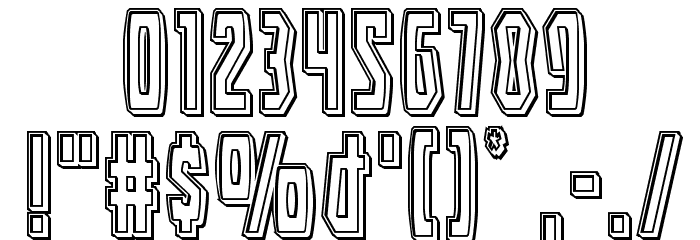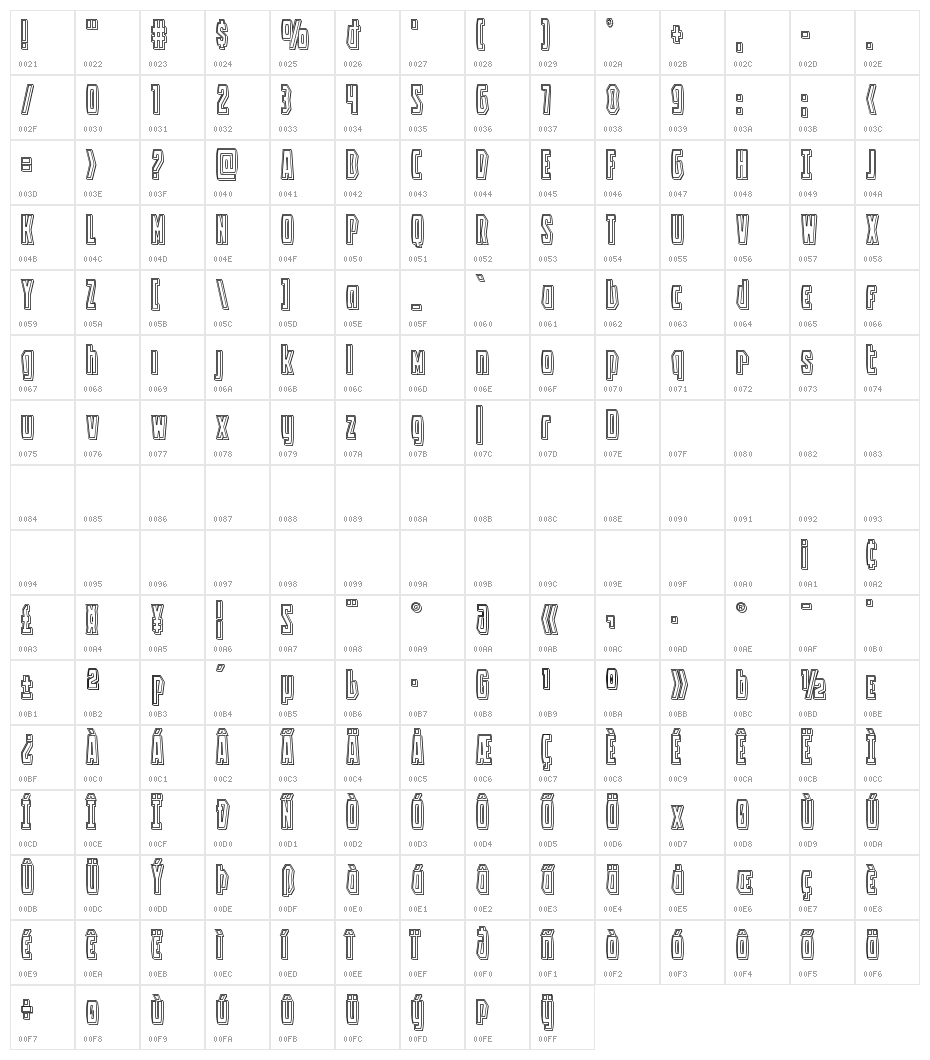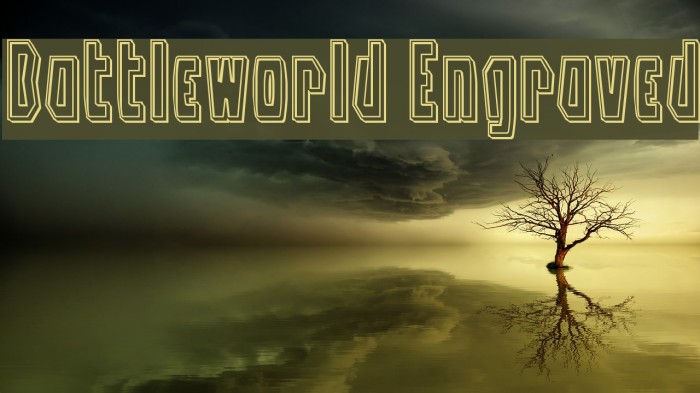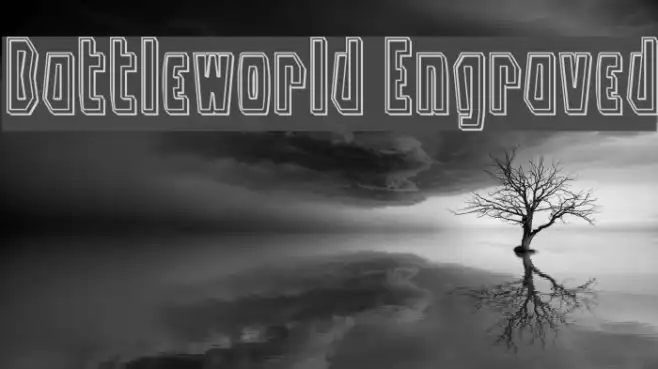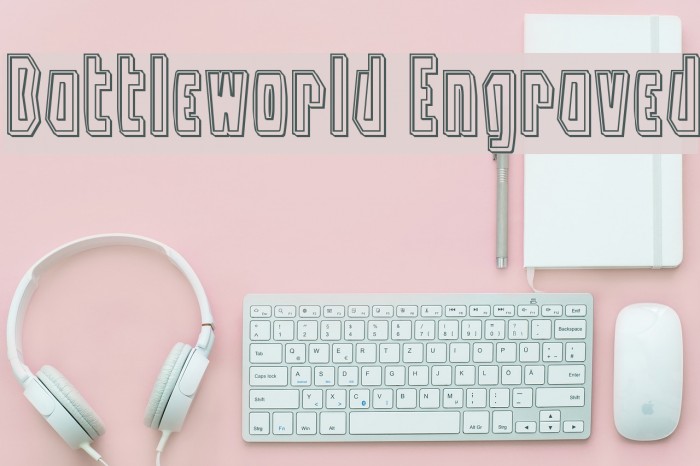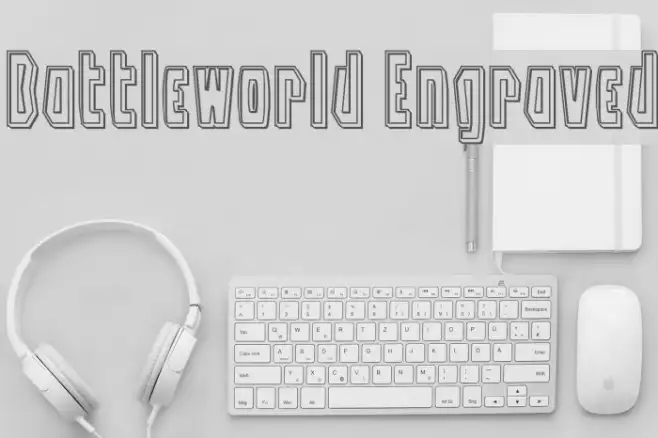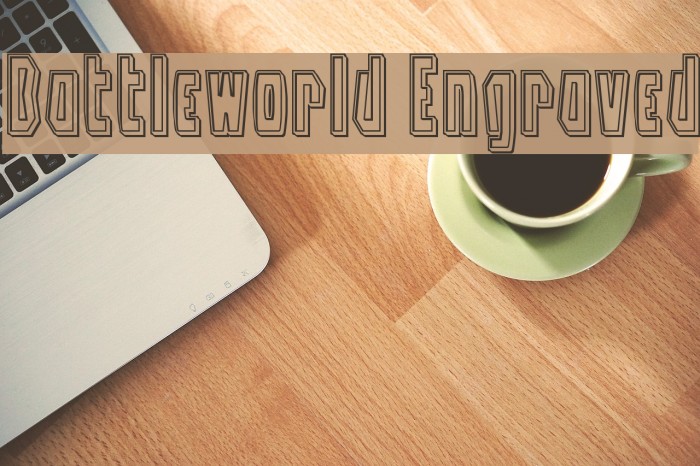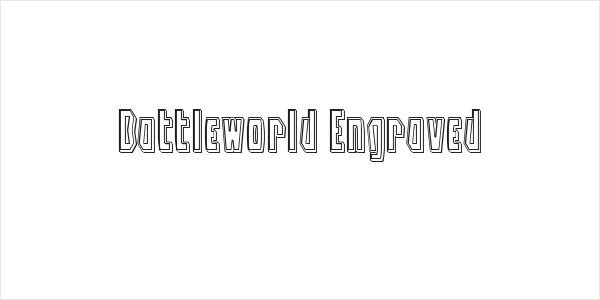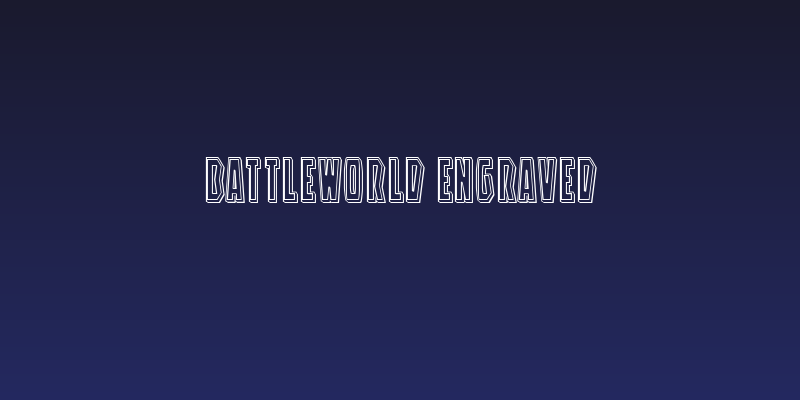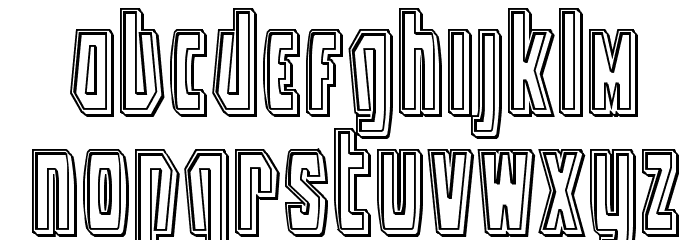
Battleworld Engraved Font
Battleworld Engraved Description
This font features a bold, engraved style with a three-dimensional effect. The uppercase and lowercase letters are designed with a strong geometric structure, giving a sense of depth and solidity. The characters are outlined with a thick border, enhancing the engraved appearance. The numbers and special characters maintain the same bold and structured design, ensuring consistency across all elements. This font's unique style makes it stand out, offering a modern twist on traditional engraved typography.
| Proposed Projects | Ideal for video game titles, posters, and branding that requires a strong, impactful presence. |